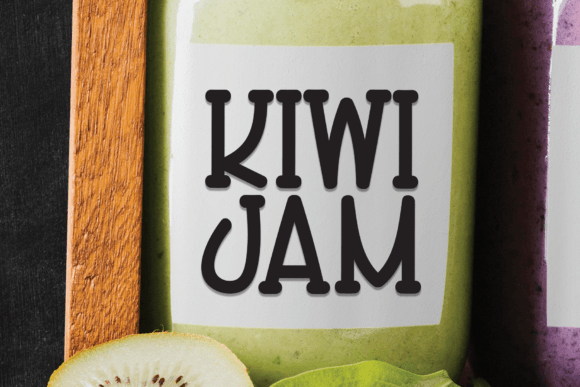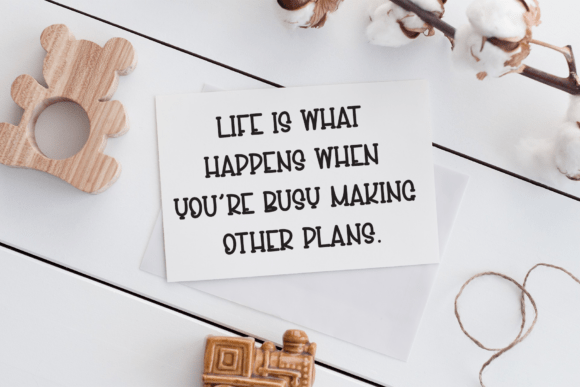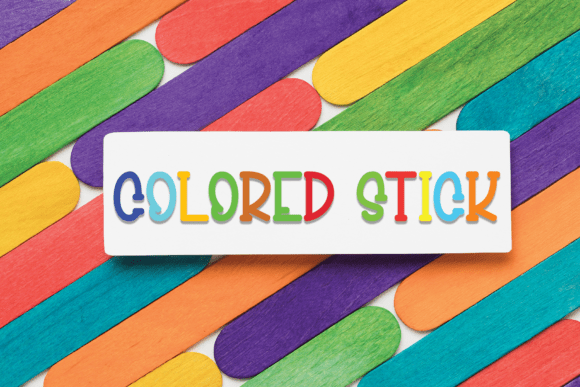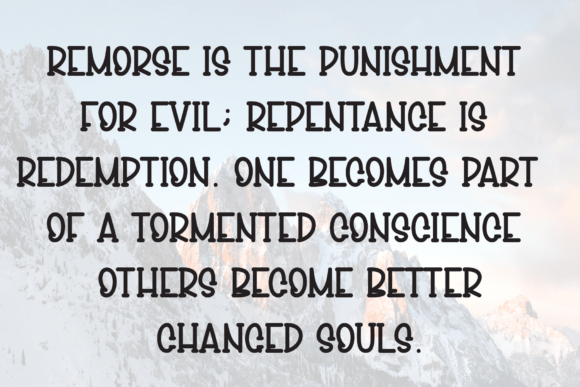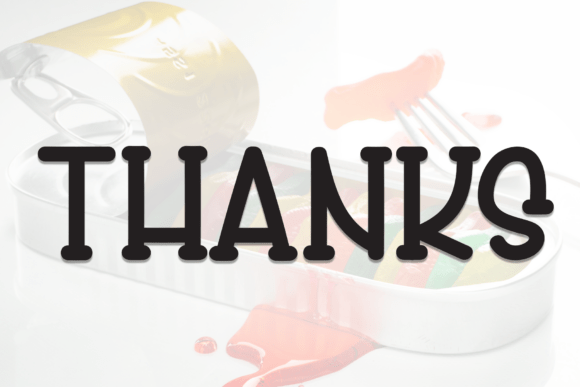
Candies Creative Font: The Sweetest Addition to Your Designs
Are you looking for a font that can add a touch of whimsy and playfulness to your designs? Look no further than Candies Creative Font! This charming handwritten display font is the perfect choice for crafting wedding invites, greeting cards, and any other designs that crave a dash of fun. With its delightful blend of sweet innocence and friendly warmth, Candies Creative Font is sure to turn your ordinary designs into extraordinary ones.
The Perfect Font for Whimsical Designs
Candies Creative Font is a handwritten display font that exudes a sense of playfulness and gentle appeal. Its unique and charming lettering style makes it perfect for designers and crafters who want to add a personal touch to their designs. Whether you’re creating wedding invitations, greeting cards, or social media graphics, this font is sure to bring a smile to your audience’s faces.
Key Features of Candies Creative Font
- Playful and Whimsical: Candies Creative Font has a playful and whimsical feel that’s perfect for designs that require a touch of fun and personality.
- Handwritten Style: This font features a beautiful handwritten style that’s perfect for creating personal and unique designs.
- Sweet and Innocent: The font has a sweet and innocent feel that’s perfect for designs that require a touch of warmth and friendliness.
- Multipurpose: Candies Creative Font can be used for a variety of designs, including wedding invites, greeting cards, social media graphics, and more.
Uses for Candies Creative Font
Candies Creative Font is a versatile font that can be used for a variety of designs. Here are some ideas to get you started:
- Wedding Invitations: Add a touch of whimsy and romance to your wedding invitations with Candies Creative Font.
- Greeting Cards: Create personalized and unique greeting cards for special occasions like birthdays, holidays, and anniversaries.
- Social Media Graphics: Use Candies Creative Font to create eye-catching social media graphics that will grab your audience’s attention.
- Party Decorations: Create custom party decorations, such as banners and signs, with Candies Creative Font.
Tips for Using Candies Creative Font
Here are some tips for using Candies Creative Font in your designs:
- Pair with Other Fonts: Pair Candies Creative Font with other fonts to create a unique and interesting contrast.
- Use Bright Colors: Use bright and bold colors to match the playful and whimsical feel of Candies Creative Font.
- Experiment with Sizes: Experiment with different font sizes to create visual interest and hierarchy in your designs.
- Add Graphics: Add graphics and illustrations to your designs to enhance the playful and whimsical feel of Candies Creative Font.